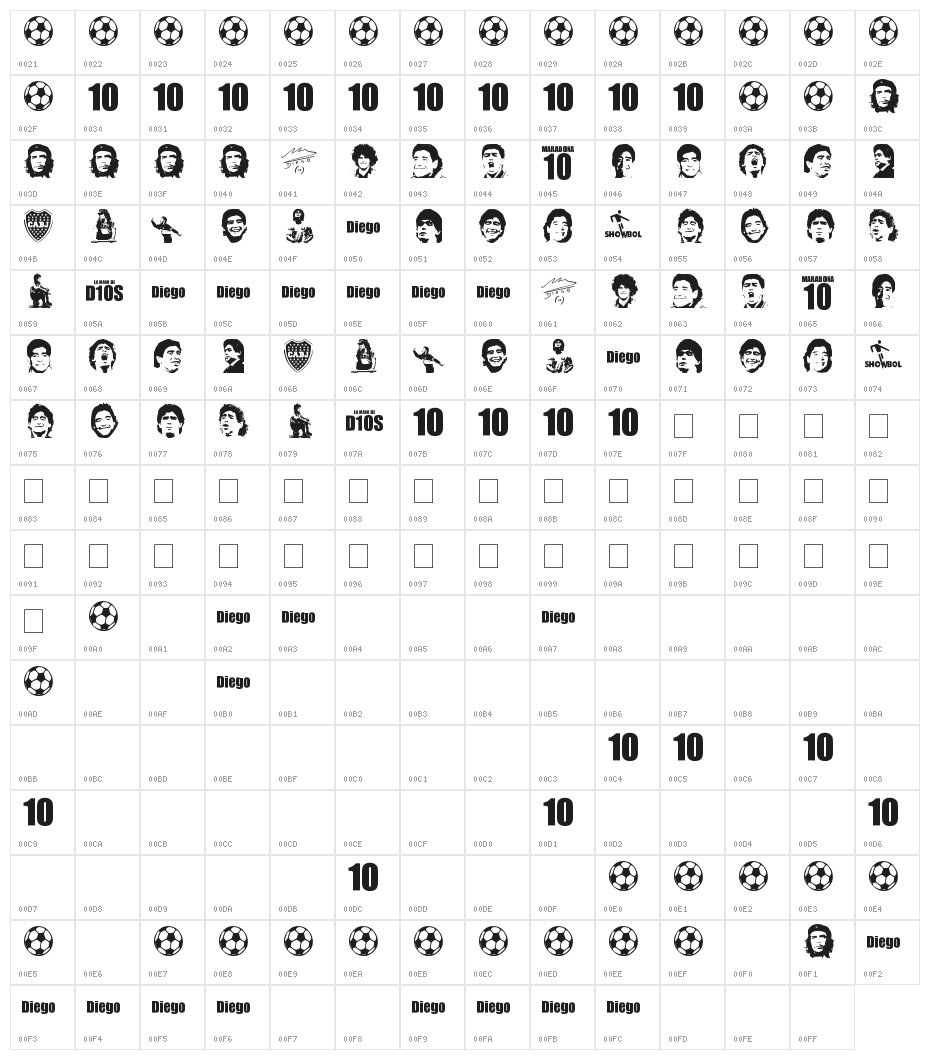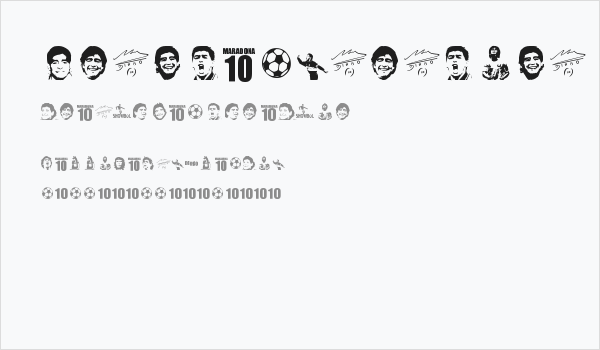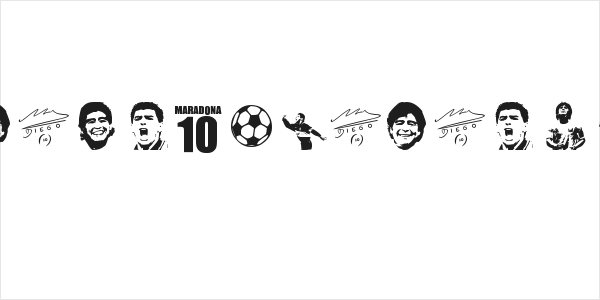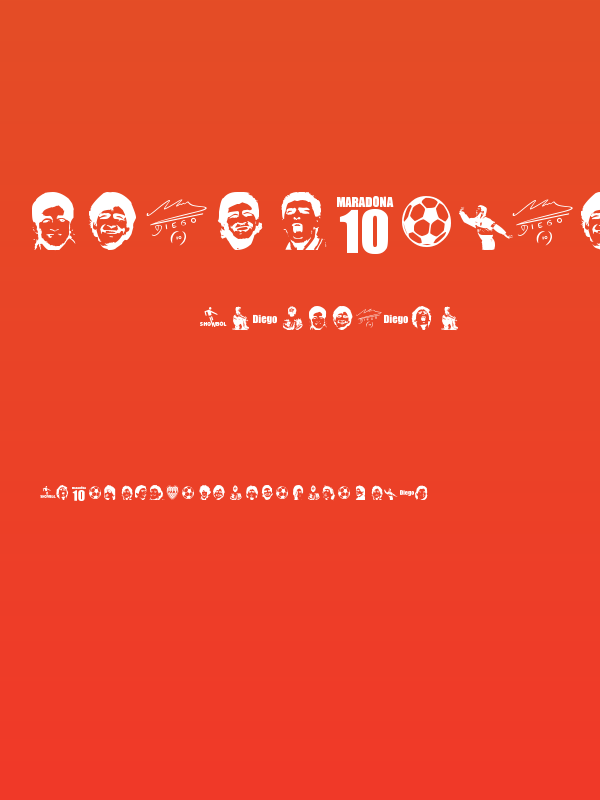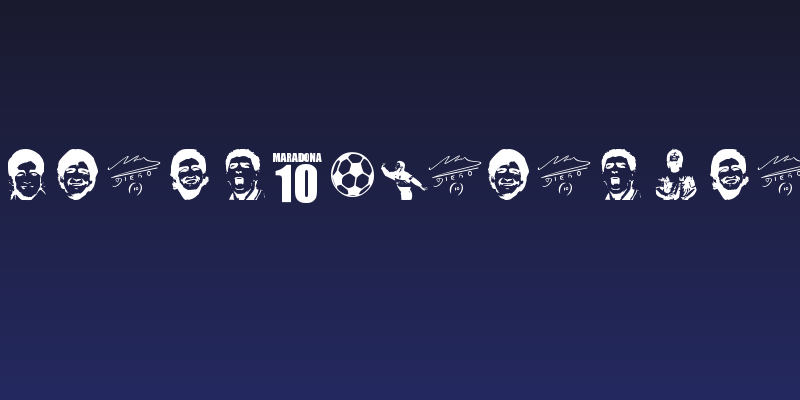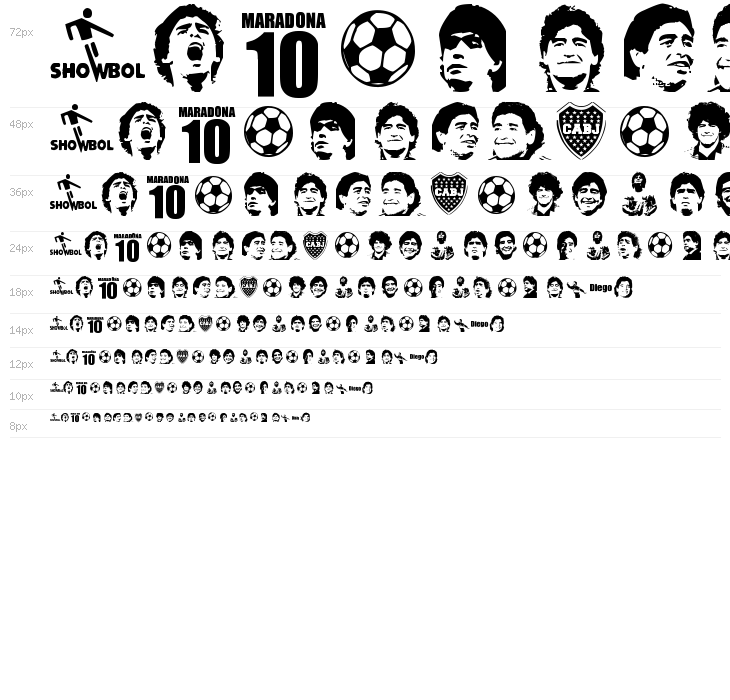
grande maradona Font
grande maradona Description
A decorative display font featuring bold, blocky numerals and a mix of illustrated icons, including stylized faces, soccer imagery, and sports-related symbols. The font includes both text and pictorial elements, with high contrast and a playful, thematic style.
| Overall Style | Decorative, Thematic, Playful |
| Use Case | Headlines, Posters, Logos, Merchandise |
| Proposed Projects | Sports posters, fan merchandise, themed event graphics, memorabilia, custom t-shirts. |